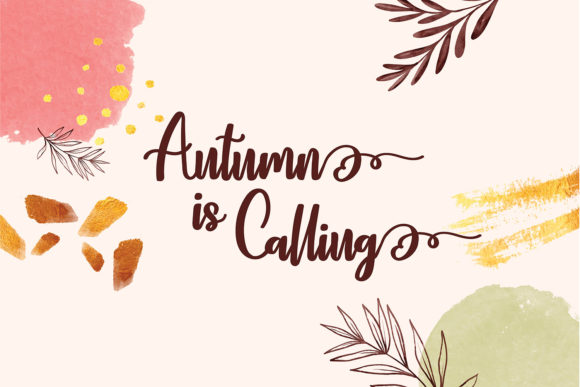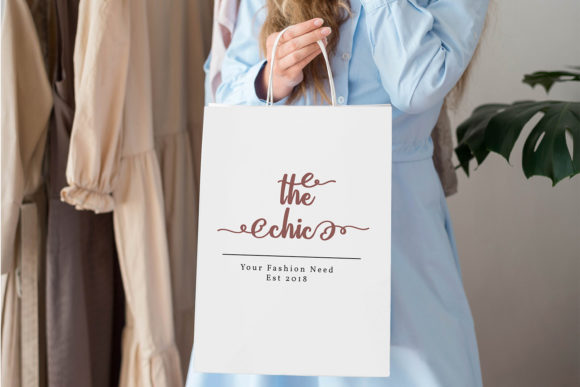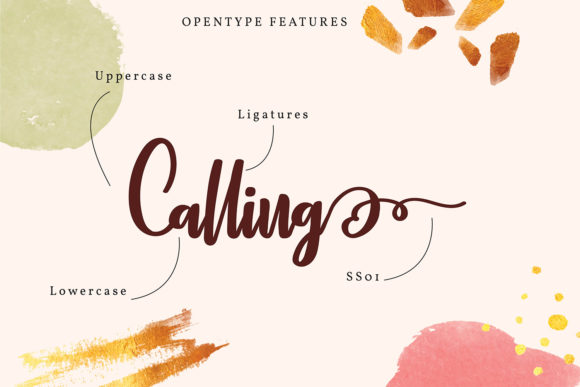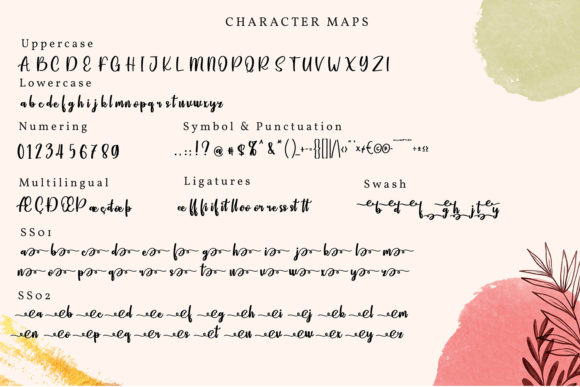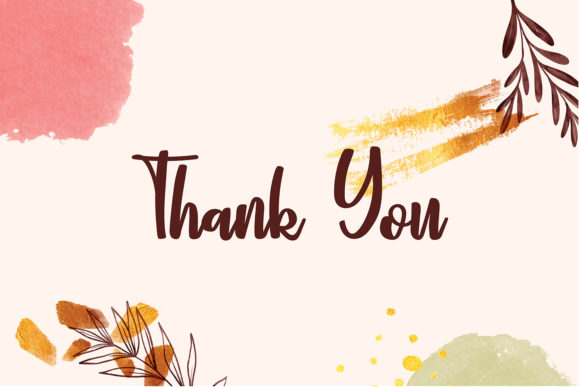
The Ethryne Font: A Delicate, Elegant Script to Elevate Your Designs
I still remember the frustration of working on a project, hours spent crafting the perfect layout, only to realize that the font I was using just wasn’t cutting it. The client wanted something elegant, something that would make their brand stand out, but I was stuck. That’s when I discovered the Ethryne font, and it completely transformed my design. In this article, I’ll share my experience with Ethryne, its features, and how to make the most of this beautiful handwritten font.
What Makes Ethryne Special?
Ethryne is a delicate, elegant, and flowing handwritten font that has beautiful and well-balanced characters, making it suitable for a wide range of designs. Its varying baseline, smooth lines, gorgeous glyphs, and stunning alternates make it a versatile choice for any creative project.
Here’s my honest review of Ethryne:
- ✨ Elegant and sophisticated: Ethryne adds a touch of class to any design.
- ✅ Highly versatile: It pairs well with a variety of design styles, from modern to vintage.
- 🌈 Beautiful glyphs and alternates: The font comes with a range of glyphs and stylistic alternates to keep your designs fresh.
However, there are a few things to keep in mind:
- 🤔 Legibility at small sizes: While Ethryne is stunning at larger sizes, it can become a bit tricky to read at smaller sizes.
- ⚠️ Not ideal for body text: Due to its elegant, cursive nature, Ethryne is best used for headings, titles, or short paragraphs.
The Story Behind Ethryne
Ethryne was designed with the intention of creating a beautiful, elegant script that would add a touch of sophistication to any design. The designer aimed to create a font that was both versatile and stylish, with a range of glyphs and alternates to keep designs fresh.
| What is Ethryne best used for? | Ethryne is best used for headings, titles, and short paragraphs where you want to add a touch of elegance and sophistication. |
| Is Ethryne suitable for body text? | No, due to its elegant, cursive nature, Ethryne is not ideal for body text. It’s best used for display text. |
| Does Ethryne come with a range of glyphs and alternates? | Yes, Ethryne features a range of glyphs and stylistic alternates to keep your designs fresh and interesting. |